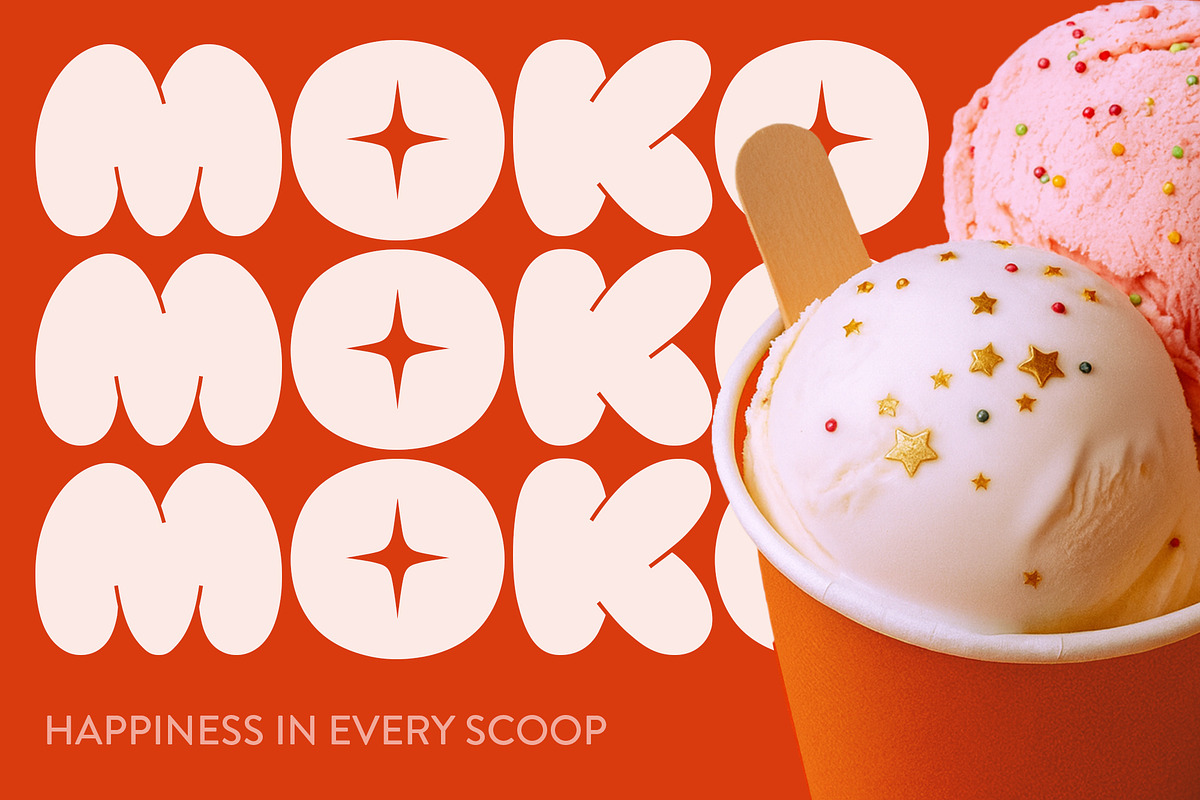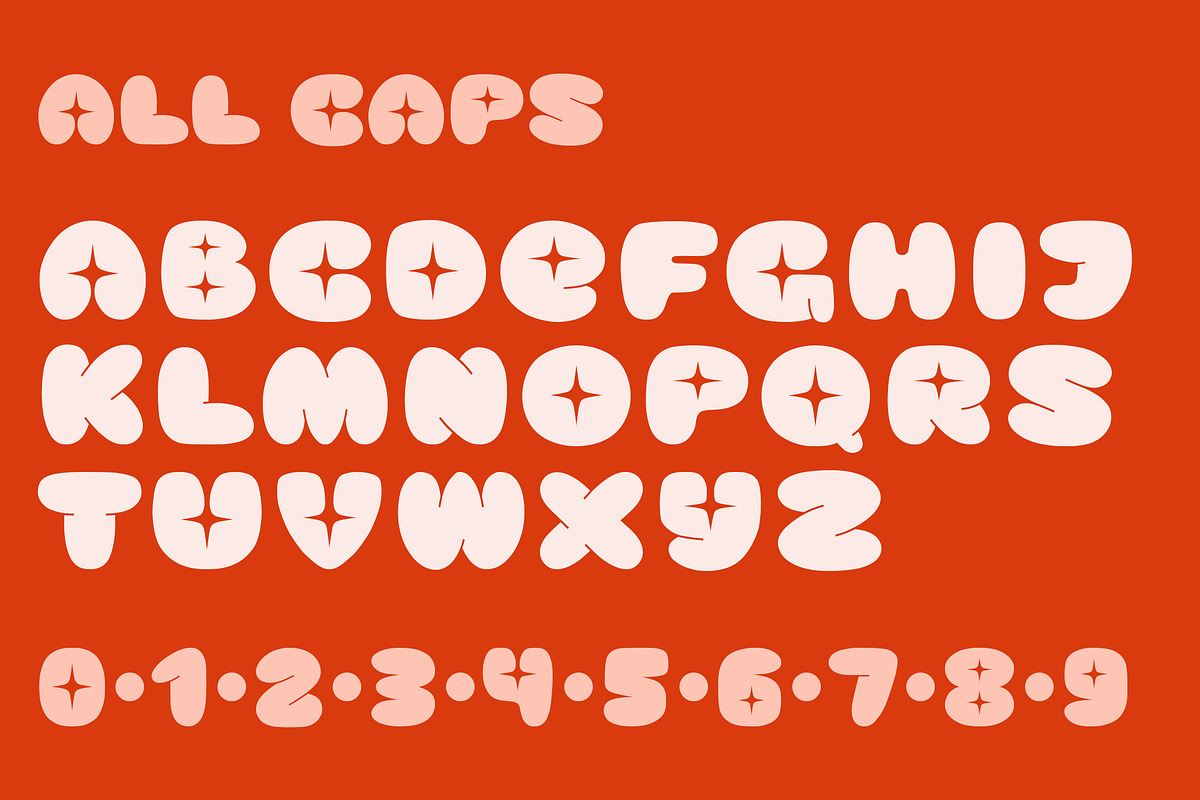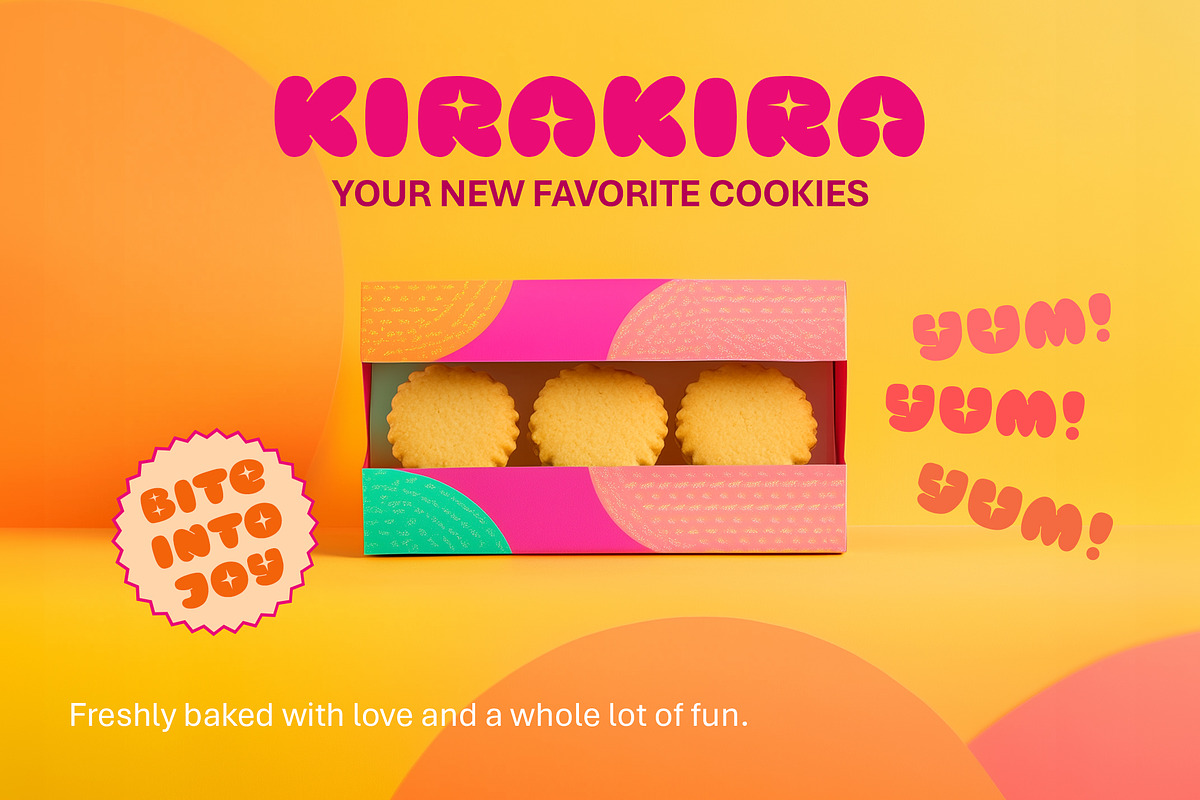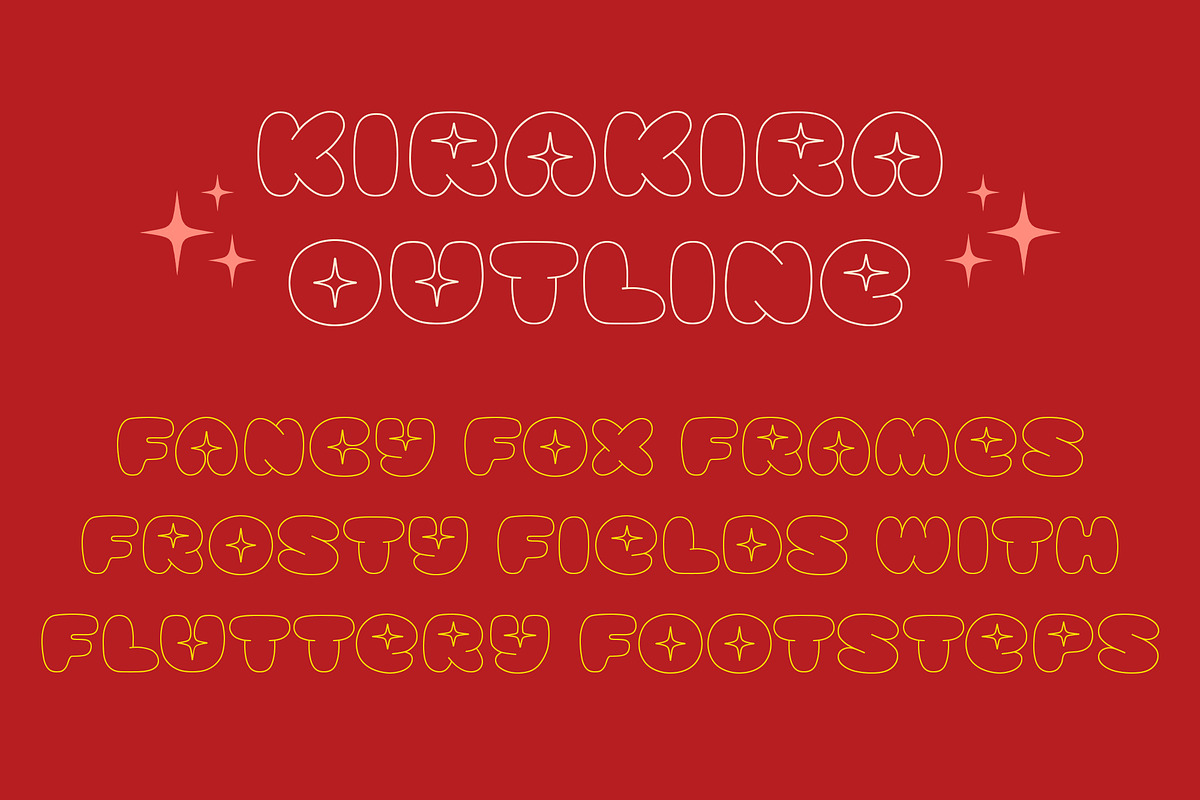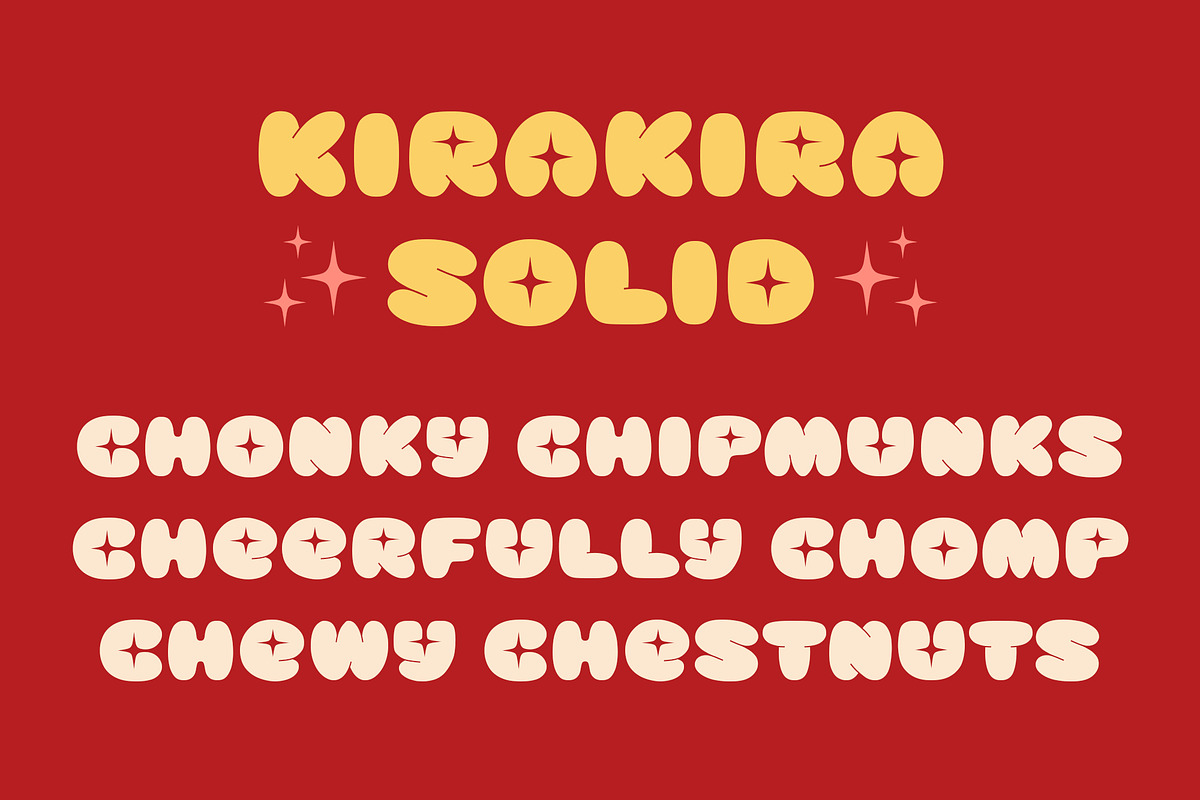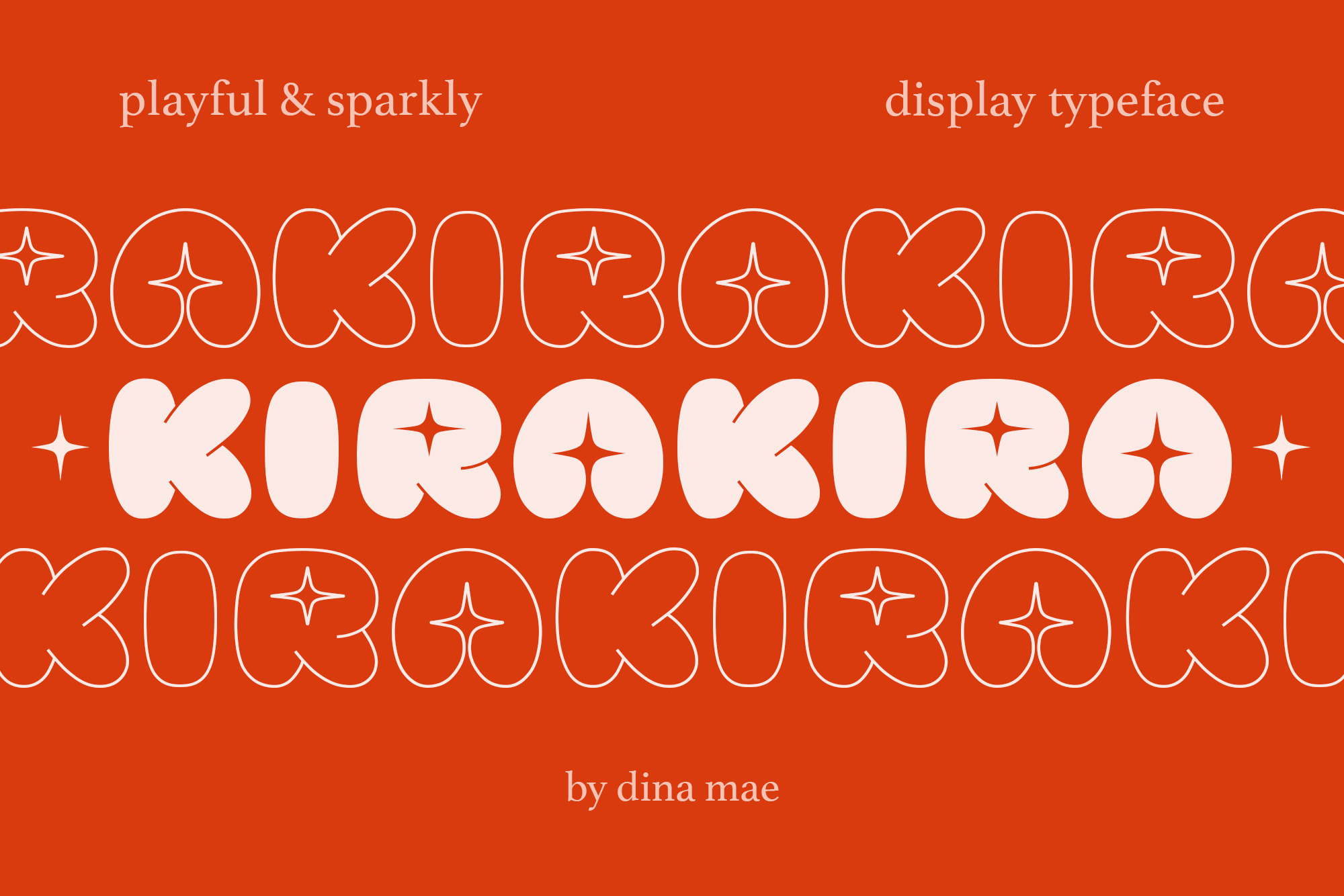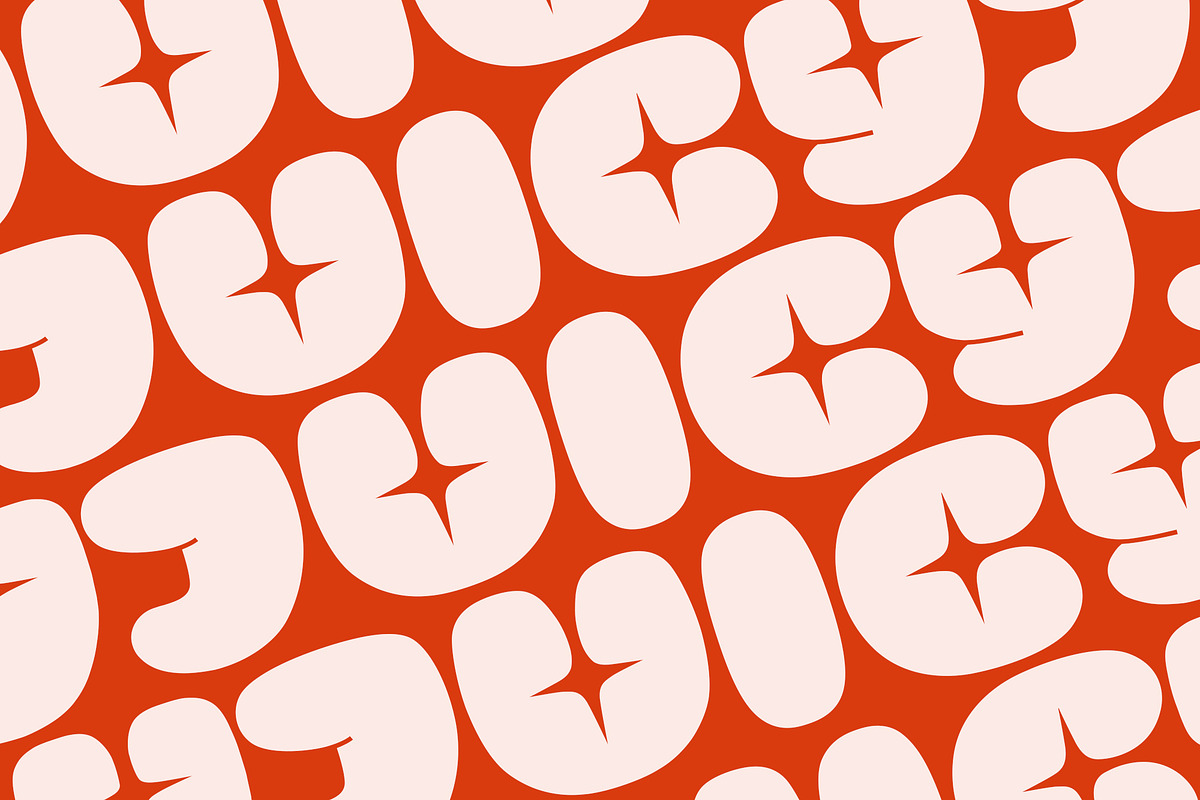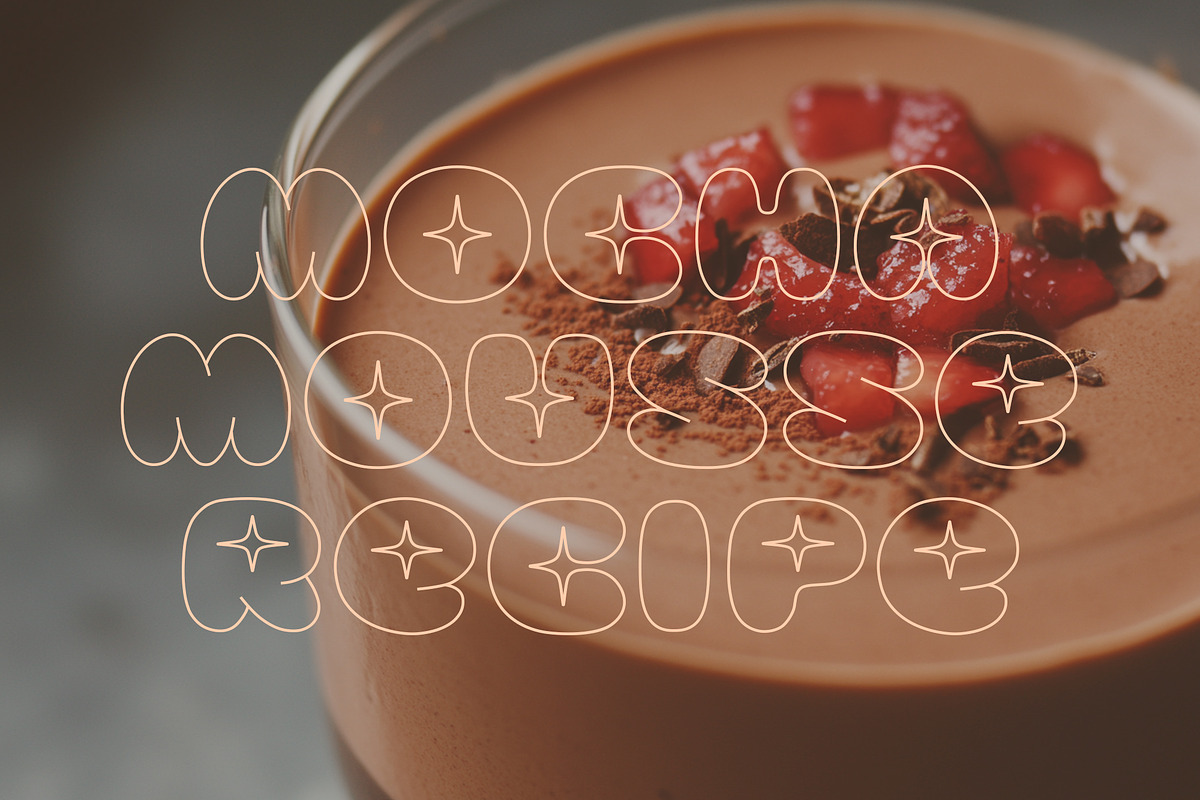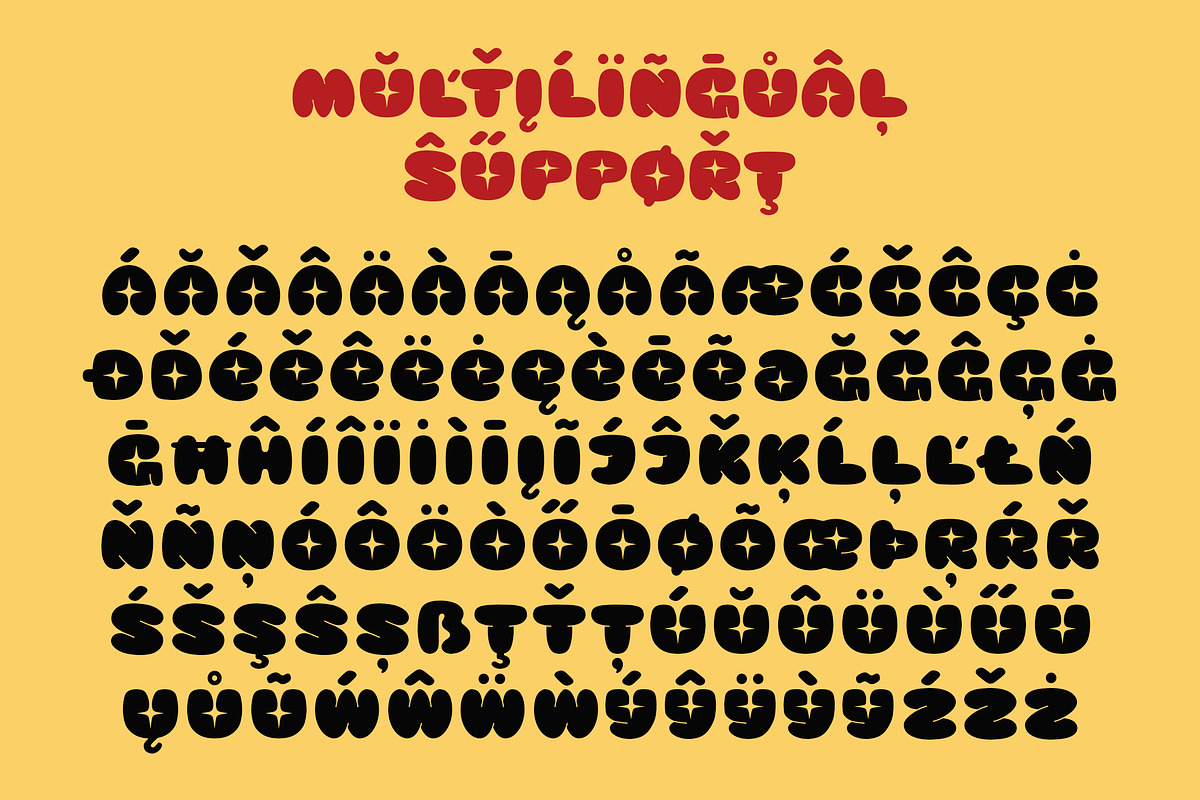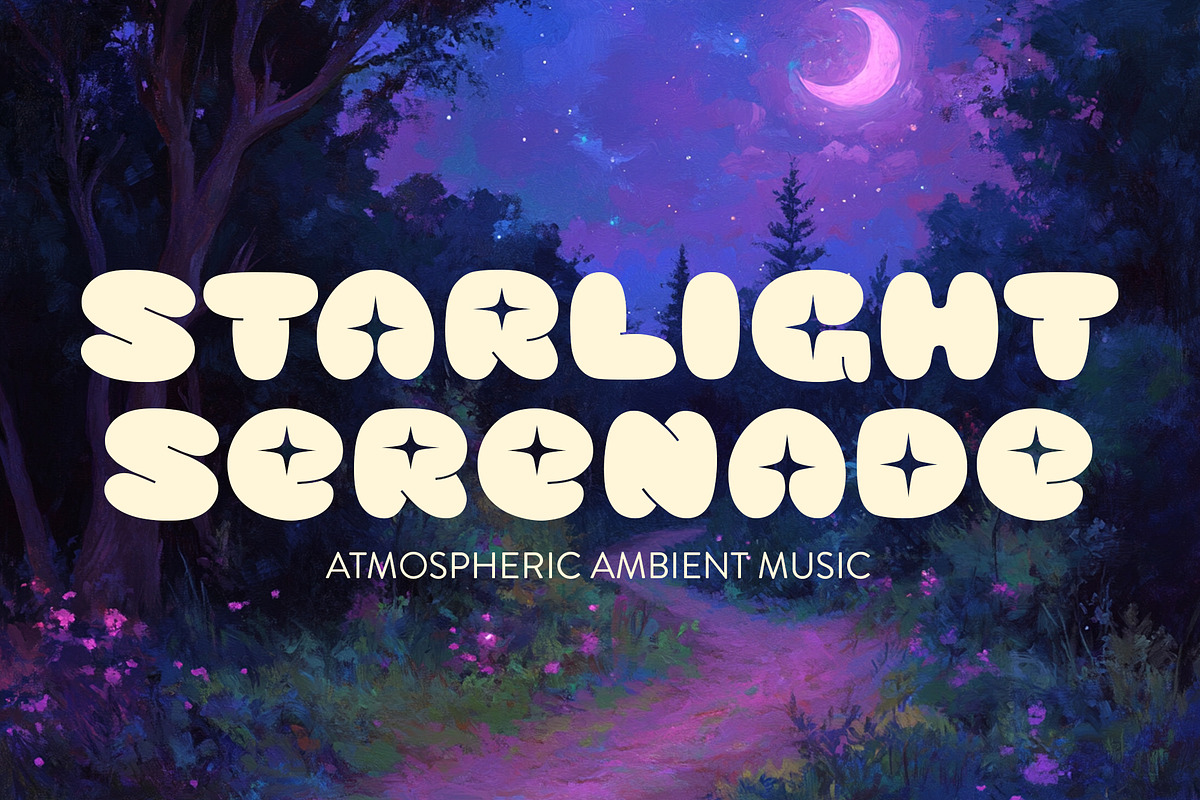
KiraKira - Playful Sparkly Typeface
KiraKira is a playful, bold, and wonderfully whimsical font that shines with joy and sparkles. Inspired by the lively twinkle of a bright, animated world, it blends fun and clarity in a way that feels instantly uplifting. Its rounded edges, quirky shapes, and cheerful personality make it perfect for projects that need both charm and impact.
From eye-catching headlines to playful logo marks, animated titles, social media graphics, characterful packaging, kids’ products, stationery, posters, stickers, merch, and creative branding - KiraKira brings a burst of energy wherever it lands.
If your work calls for something joyful, expressive, and full of life, KiraKira is ready to shine ✦